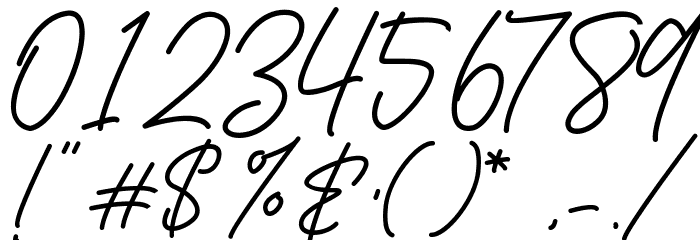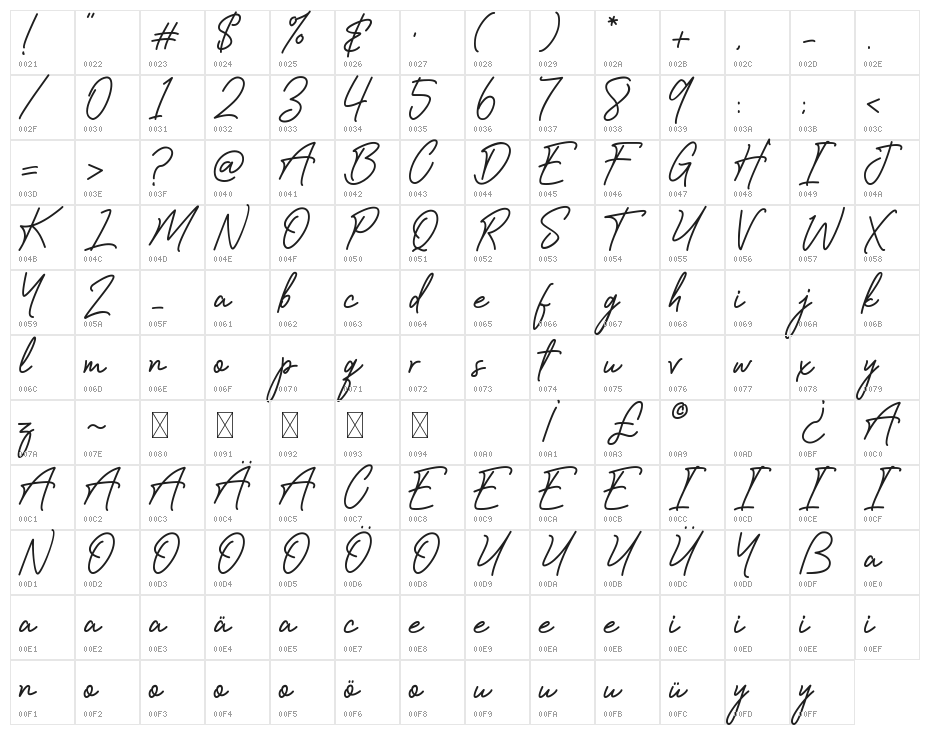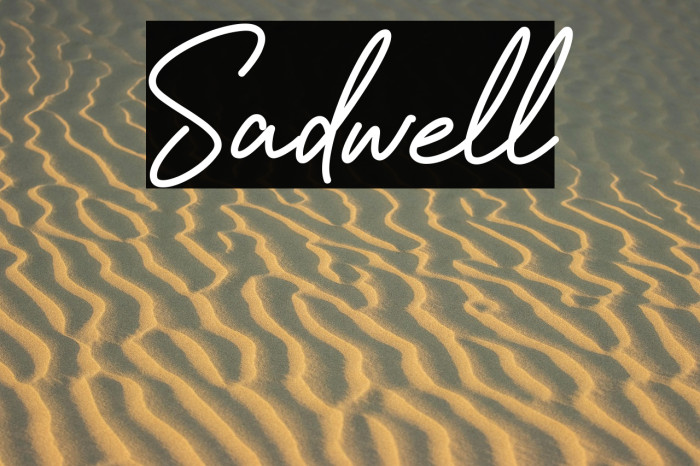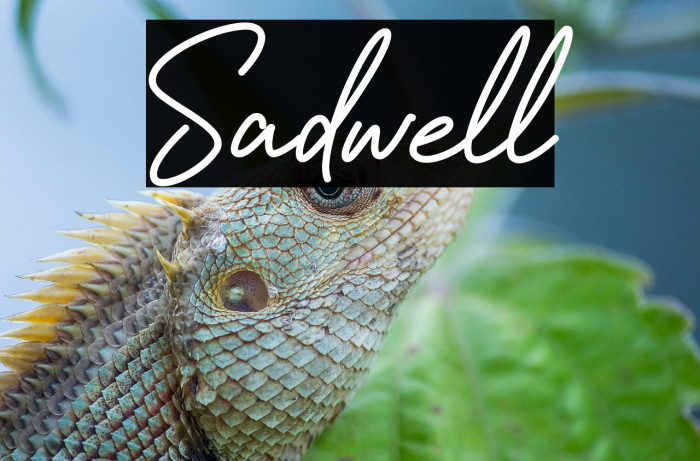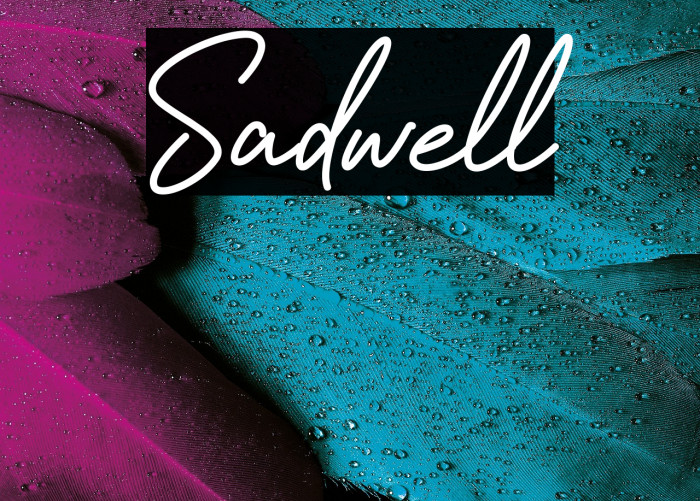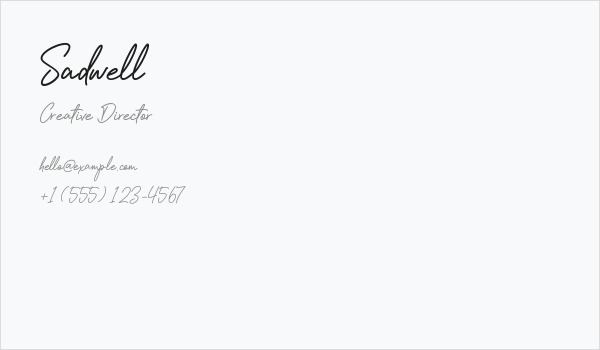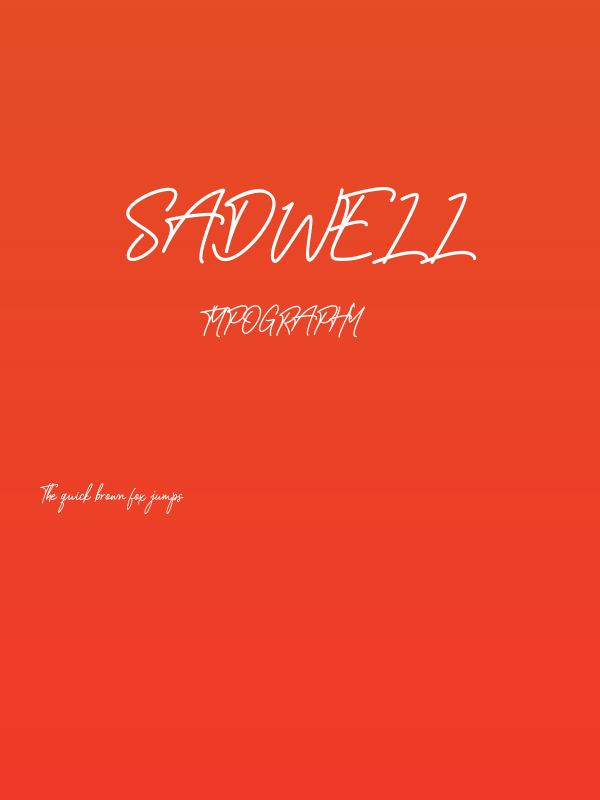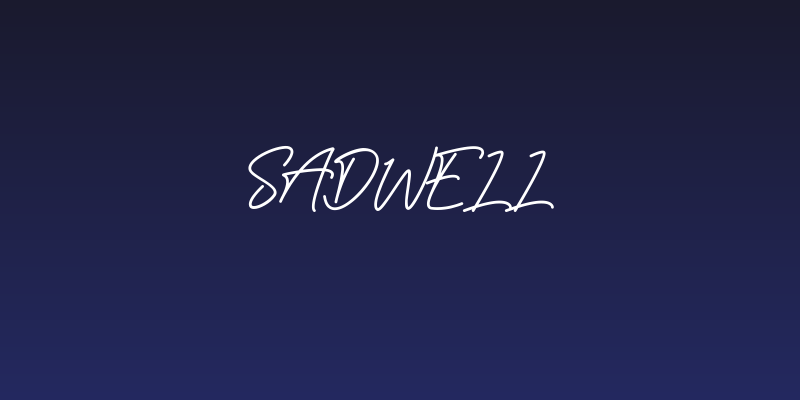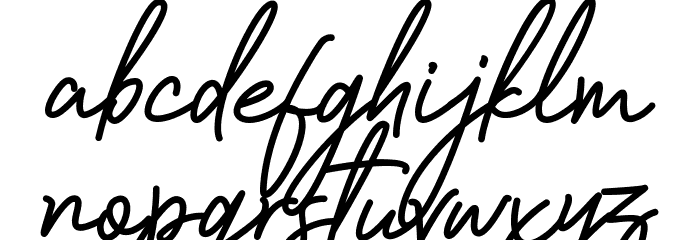
Sadwell Font
Sadwell Description
This font features a dynamic and fluid script style, characterized by its elegant, flowing curves and connected letterforms. The uppercase letters exhibit a graceful, sweeping motion, while the lowercase letters maintain a consistent, cursive flow. The numerals are crafted with the same fluidity, ensuring a cohesive look throughout. Special characters are seamlessly integrated, enhancing the font's versatility. The overall appearance is both sophisticated and approachable, making it suitable for a variety of design applications.
| Proposed Projects | Ideal for wedding invitations, greeting cards, branding projects, and elegant packaging designs. |